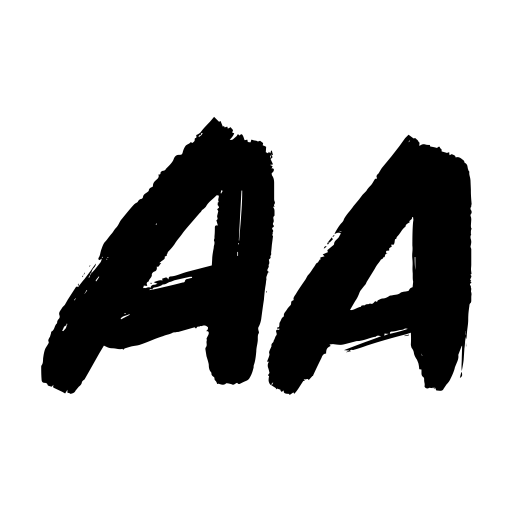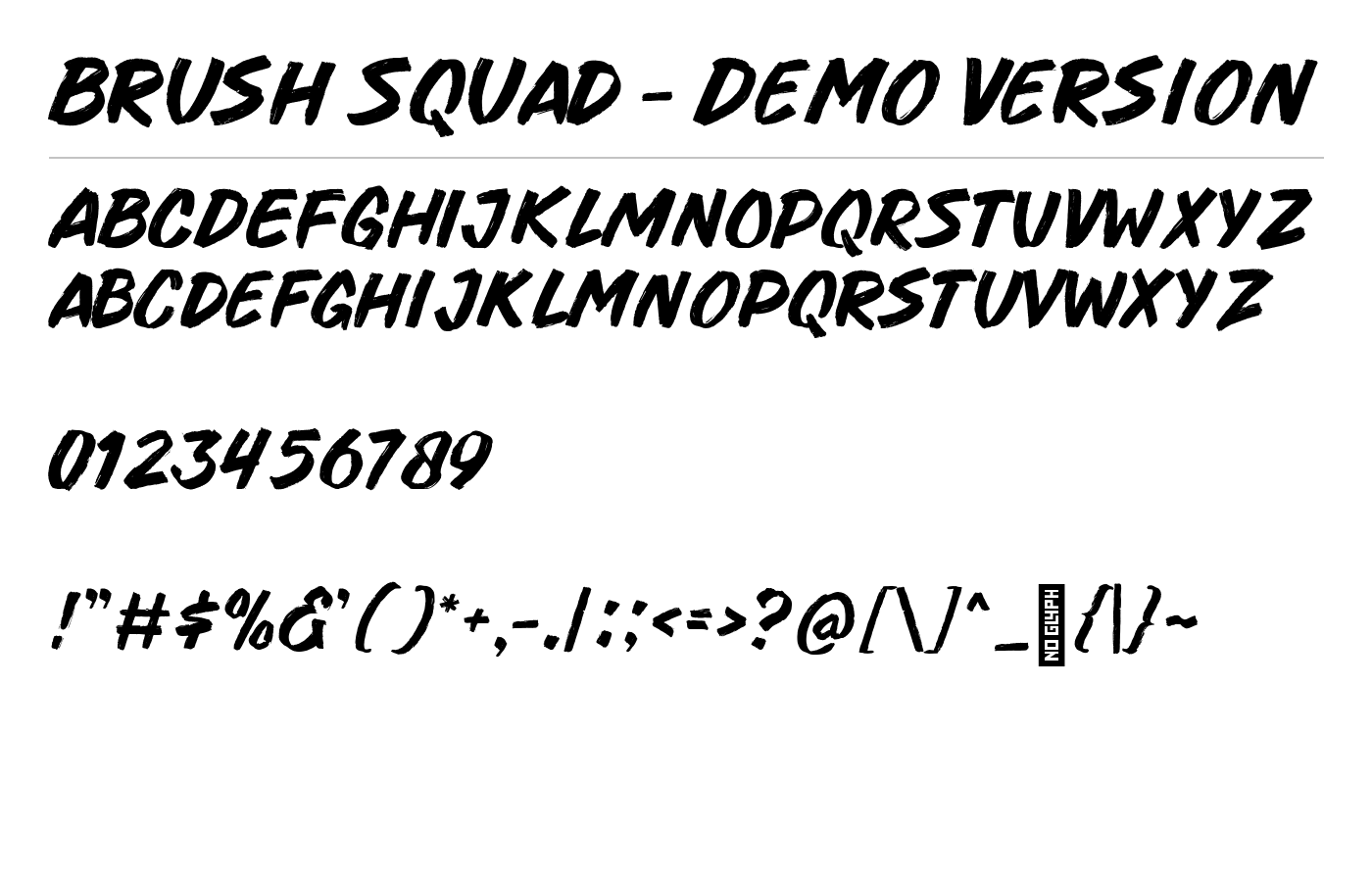
Brush Squad - Demo Version is a bold, energetic brush script font characterized by its textured, hand-painted look and slightly slanted, casual style. Its wide strokes and irregular edges give it a spontaneous, dynamic feel, making it perfect for creative branding, posters, and any design seeking a lively, informal vibe. This font works best in display settings where its strong personality can stand out and add an artistic, adventurous touch.